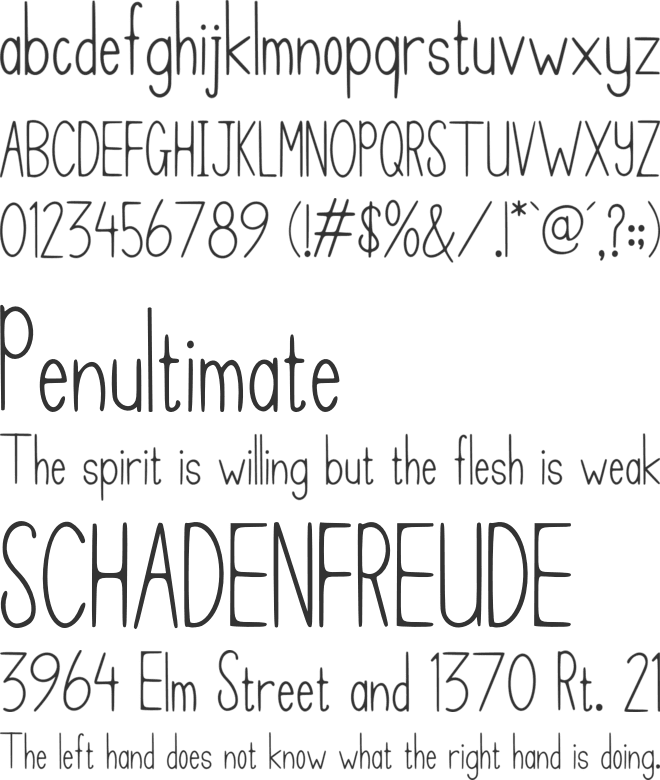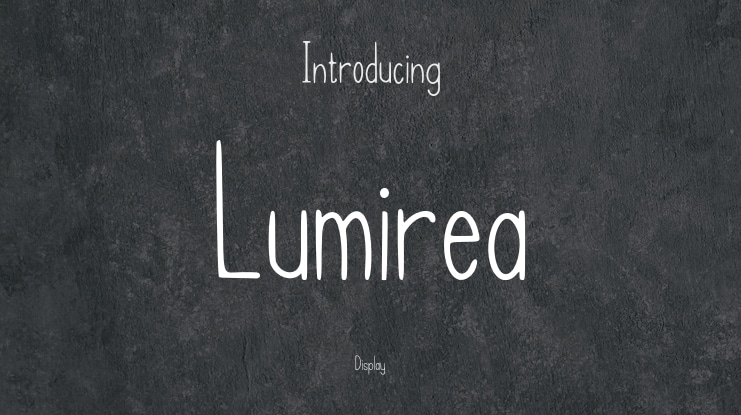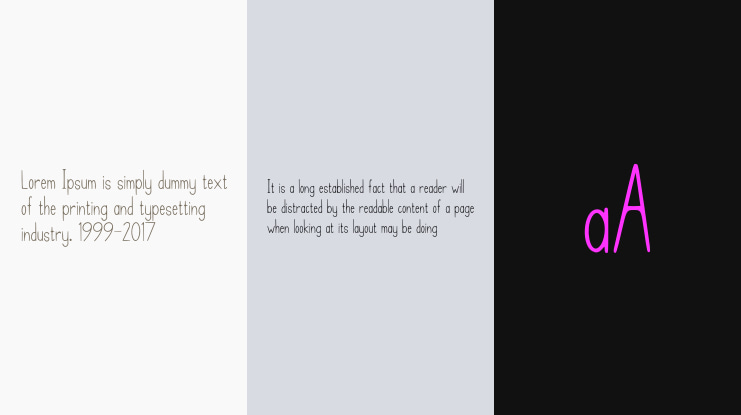
Bakhrudin Ja'far
Lumiéra is a captivating modern aesthetic handwriting font that beautifully merges simplicity with artistic elegance. This versatile typeface is designed to elevate your creative projects, offering a contemporary yet timeless appeal. It’s perfect for branding, wedding invitations, social media graphics, and editorial designs.
Inspired by natural, flowing strokes, Lumiéra brings a touch of minimalism with handcrafted details. Its smooth curves and unique character provide a personal and sophisticated vibe, making it a standout choice for both professional and creative works.
Designed with flexibility and creativity in mind, Lumiéra includes a variety of features to help you craft stunning typography. With multilingual support and a wide range of stylistic options, it ensures your designs make an impact globally.
Features:
Regular style with natural handwriting-inspired design.
Uppercase & lowercase characters, numbers, and punctuation.
Multilingual support, perfect for global projects.
Whether you’re working on luxury branding, artistic packaging, or minimalist layouts, Lumiéra is the ideal choice to bring elegance and originality to every design.